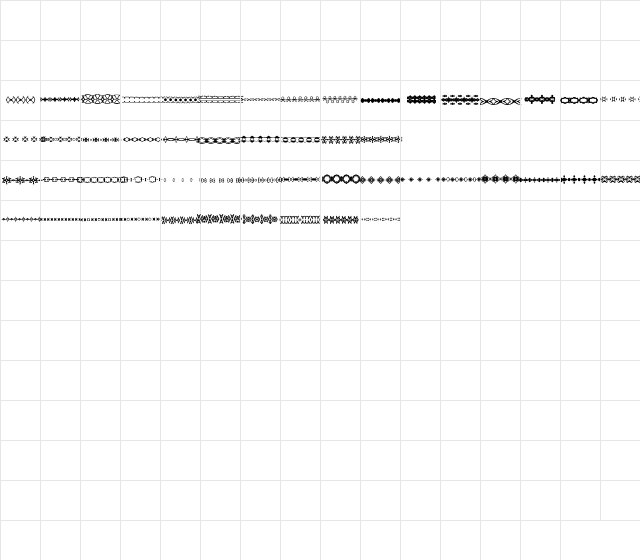
LSMoreDividers3 Regular
Foundry: High-Logic
Designer: High-Logic - Erwin Denissen
Complete LSMoreDividers3 Regular glyph index. Displaying only characters natively supported by LSMoreDividers3 Regular font.
Design Context for LSMoreDividers3
LSMoreDividers3 is a composed and adaptable typeface that performs quietly and consistently across a wide range of design contexts.